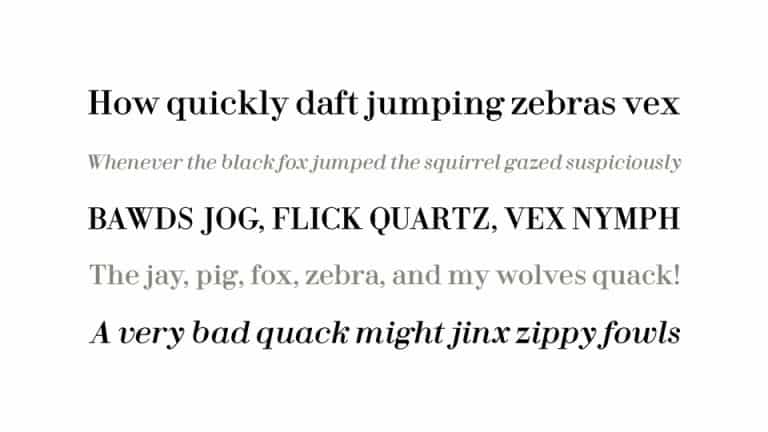
Fin Display Serif Font is created with well balanced contrast between thick stems and thin crossbar. This font is a high contrast serif font family in Regular and Italic styles. It’s a nod to Bodoni and other typefaces from the Modern era, adjusted to be more readable on modern devices.